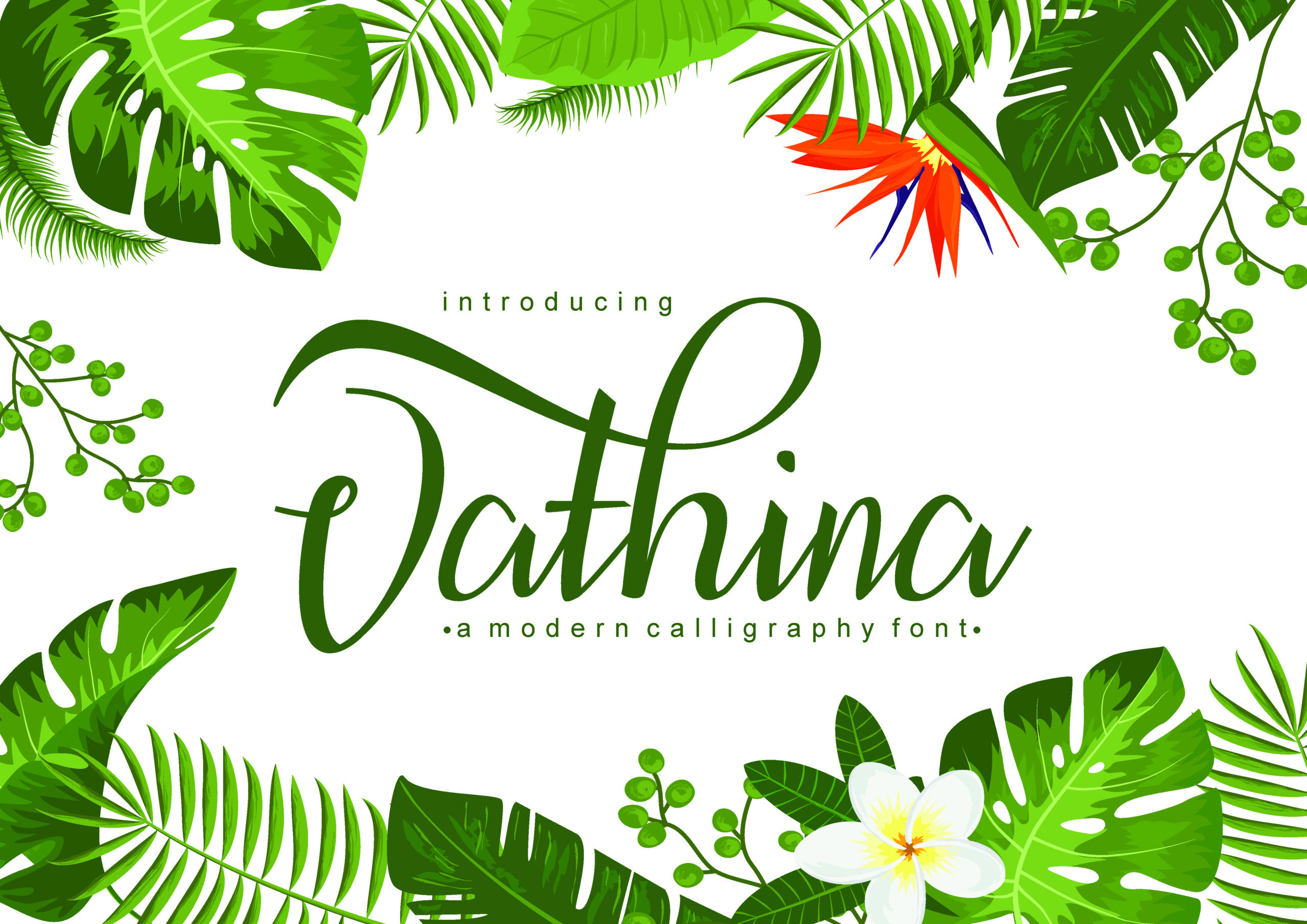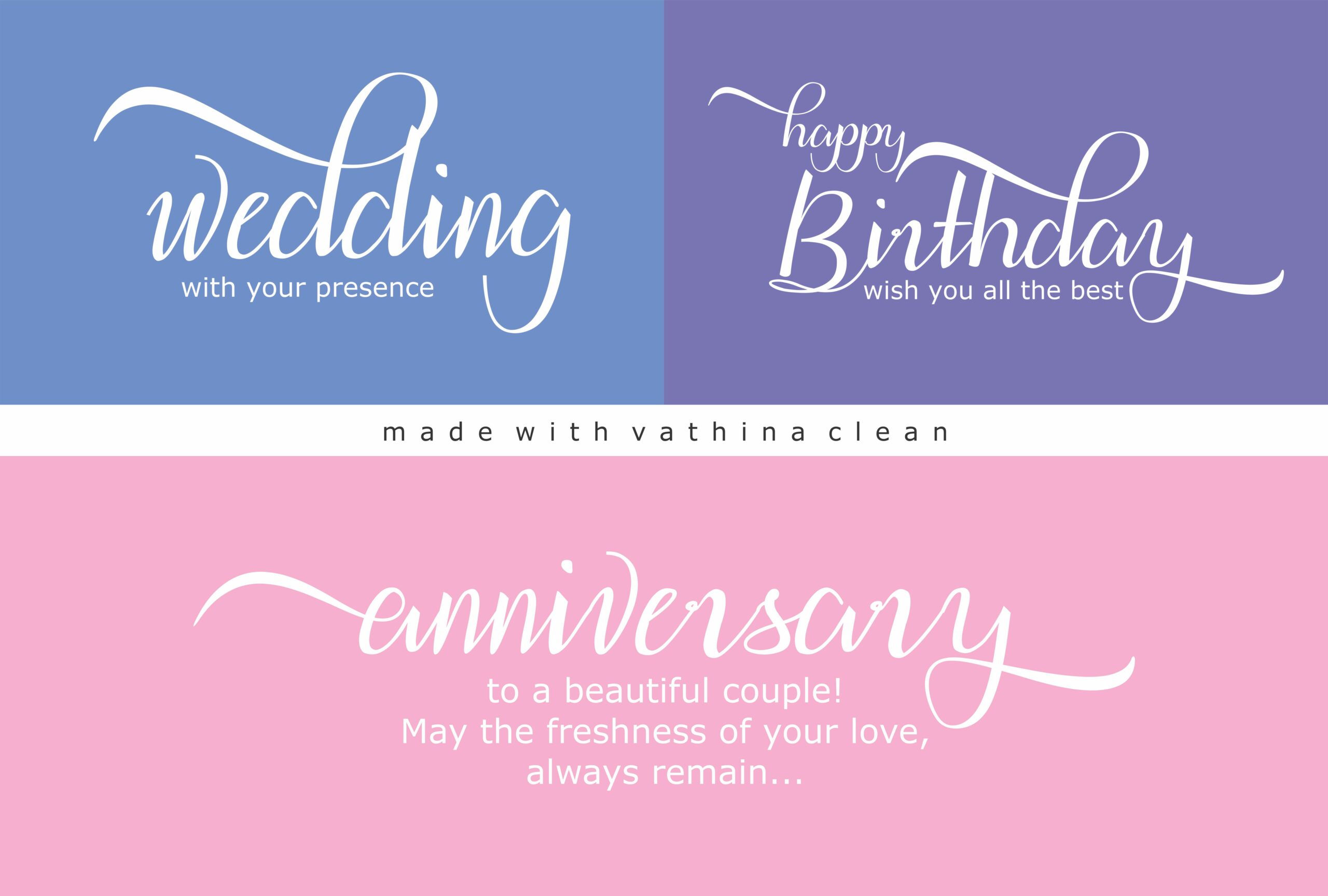
Vathina Font
About Vathina Font
Vathina is a gorgeous script font, elegant and refined to give your projects a luxurious feel. This embellished and beautiful calligraphy font is a great way to give your projects an added touch of refinement.